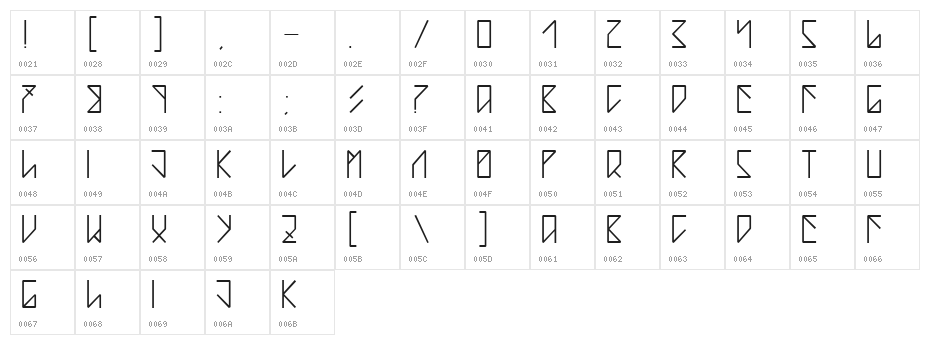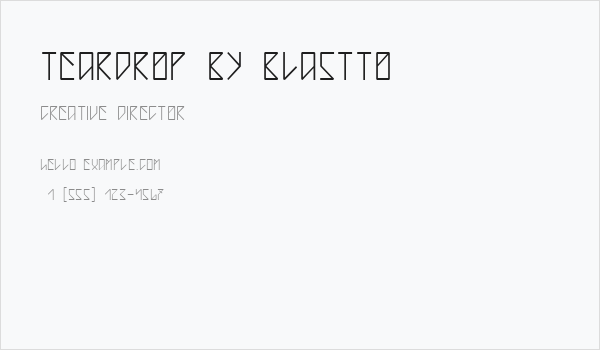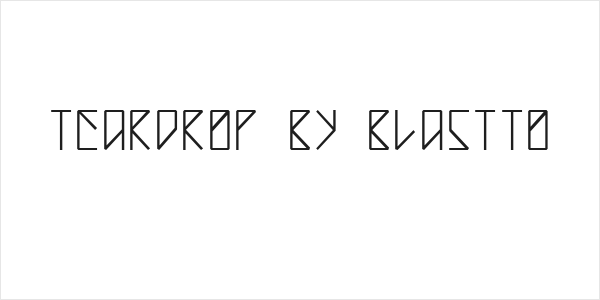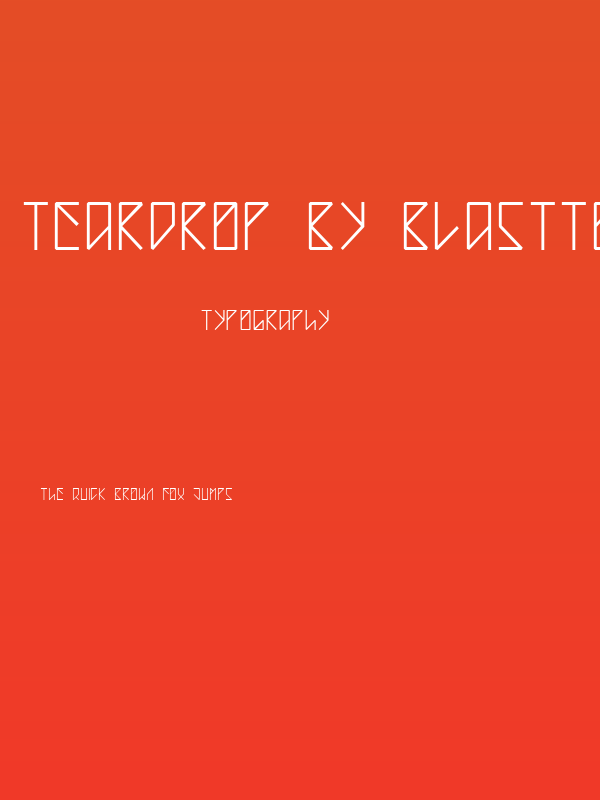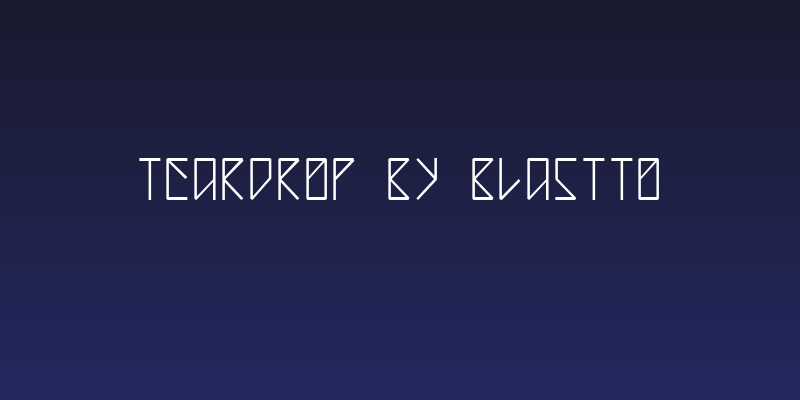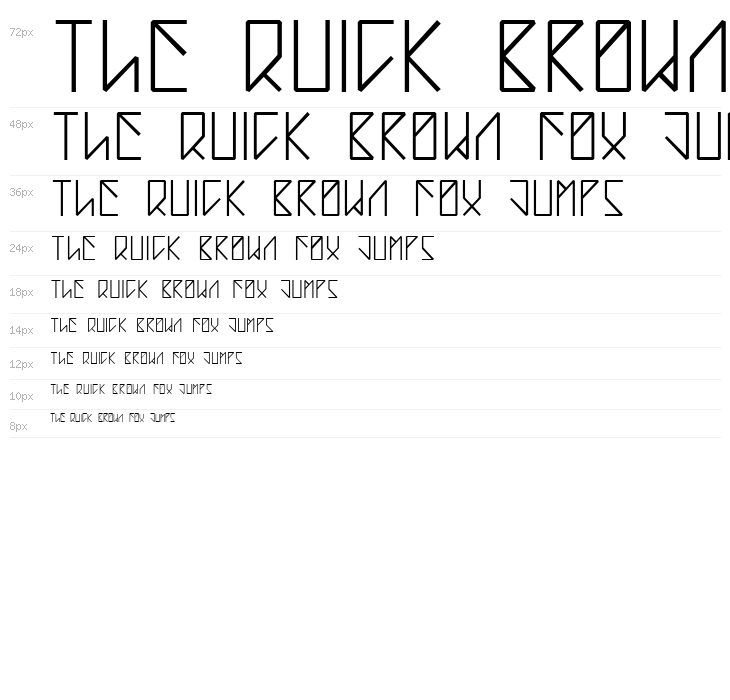
Teardrop by Blastto Font
Teardrop by Blastto Description
This font features a geometric and angular design, characterized by sharp edges and straight lines. The letters are constructed with a consistent stroke width, giving it a uniform appearance. The uppercase letters have a futuristic and minimalist style, while the numbers and special characters maintain the same angular theme. The font's unique structure makes it stand out, with each character having a distinct and recognizable form. The overall design is clean and modern, suitable for projects that require a bold and unconventional look.